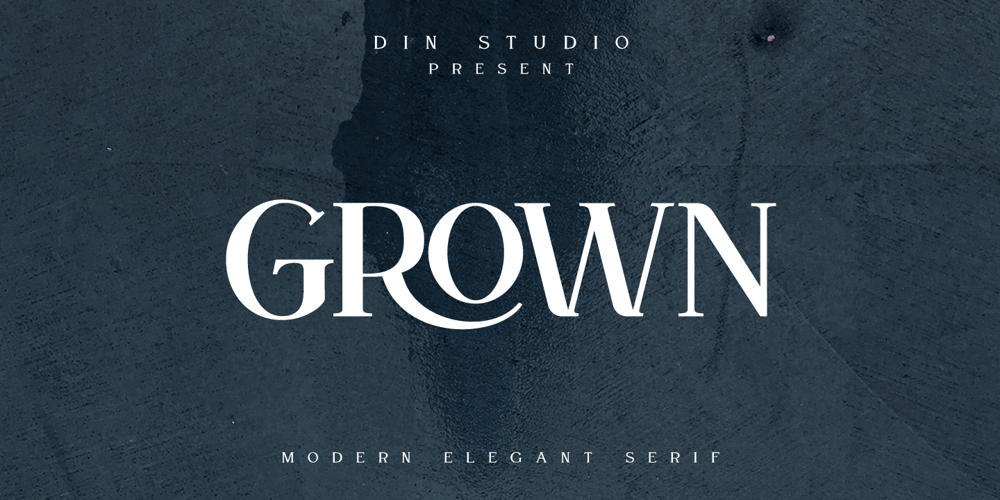
Grown Font Family was designed by Donis Miftahudin and published by Din Studio. Grown contains 1 styles and family package options. Grown is a modern and clean display font. The design of typeface will make your design more beautiful and inspiring. This font will suitable for any project, like branding, print template, logo and more.Features : Accents (Multilingual characters) 18 Ligatures 19 Alternates PUA encoded Numerals and Punctuation (Open Type Standard) Full Support